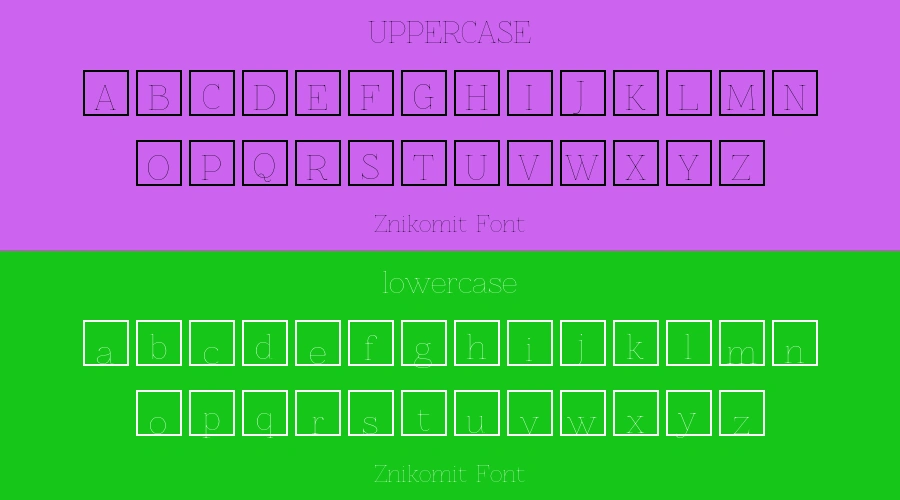
About Znikomit Font
Znikomit Font stands out for its distinctive combination of original character and operational efficiency. Ideal for historical publications, it provides the reliability and market appeal that professional projects demand. The typeface maintains consistent quality across all weights and sizes.
Key features include refined expressive energy and practical small caps, enhancing typographic expression. In running text applications, Znikomit Font demonstrates exceptional table alignment. The aperture size and historical context contribute to its distinctive character and professional appeal.